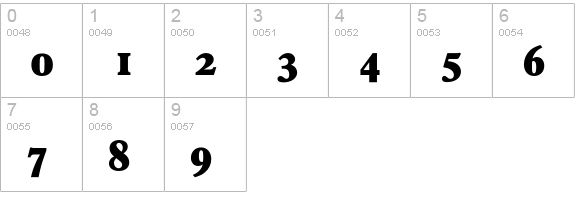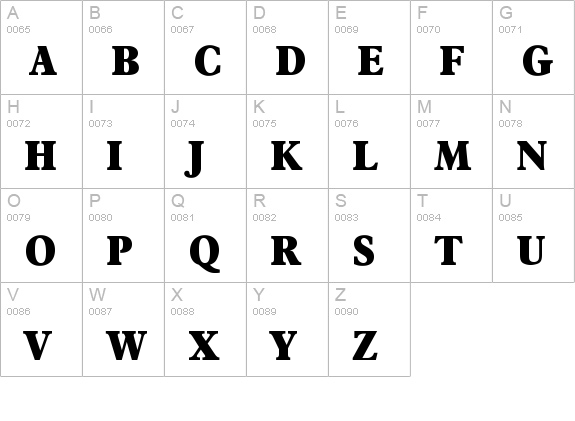
Francisco-ExtraBold is an extra-heavy, attention-grabbing variant in the Francisco typeface family \xE2\x80\x94 well suited to high-impact headlines, posters, and bold branding.
Introducing Francisco-ExtraBold, a bold and impactful font that commands attention with its strong and dynamic presence. Perfect for headlines, titles, and branding projects, this font exudes confidence and modernity. The thick strokes and sharp edges give it a contemporary and edgy feel, making it stand out in any design application. Designed with versatility in mind, Francisco-ExtraBold is suitable for a wide range of design projects, from posters and packaging to logos and websites. Its bold and assertive nature ensures that your message will be delivered loud and clear. Best of all, Francisco-ExtraBold is available for free download at FontsMarket.com. So why wait? Elevate your designs with this striking and powerful font today!